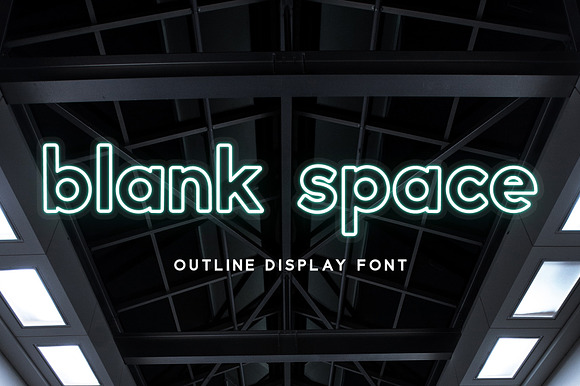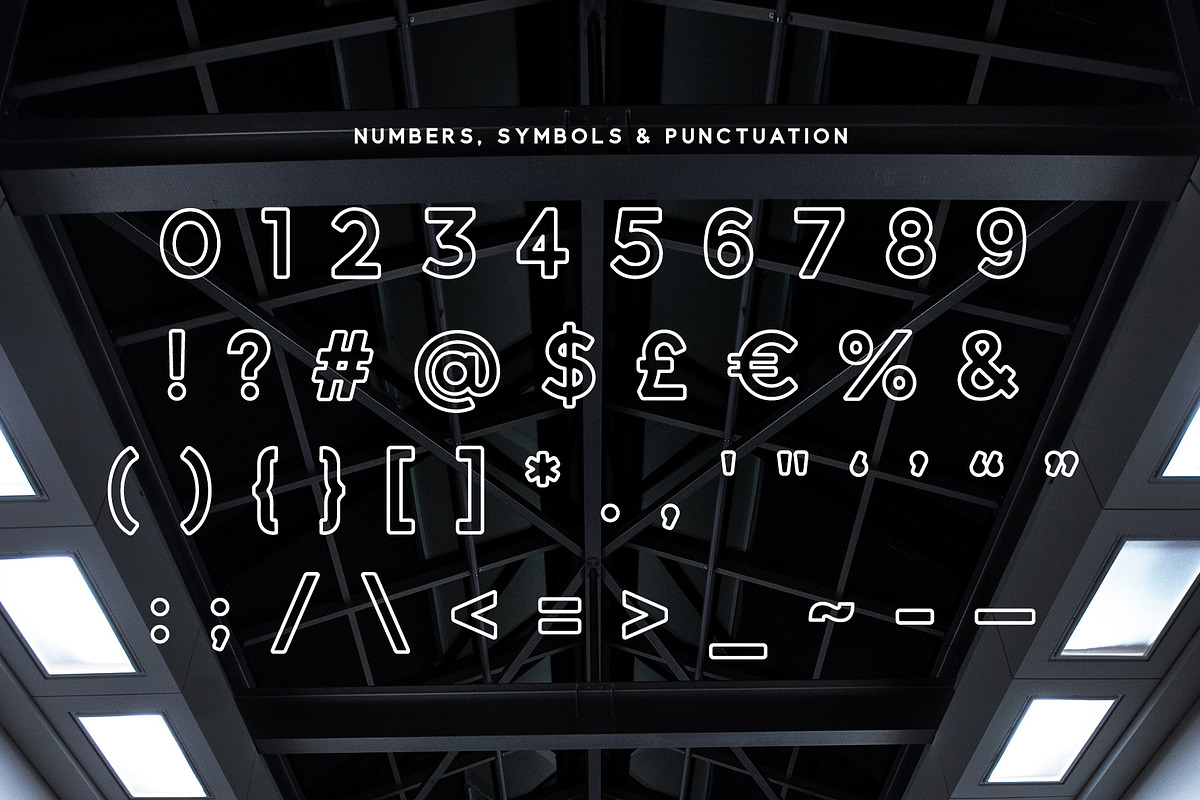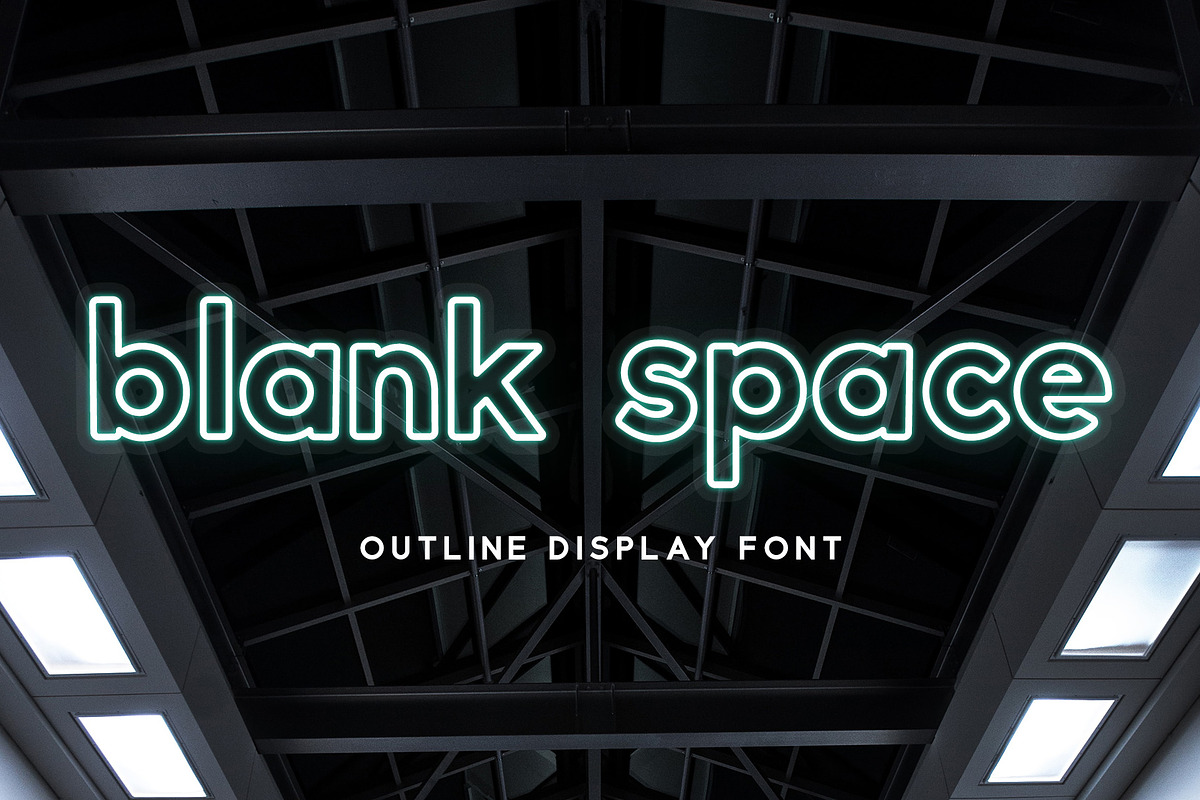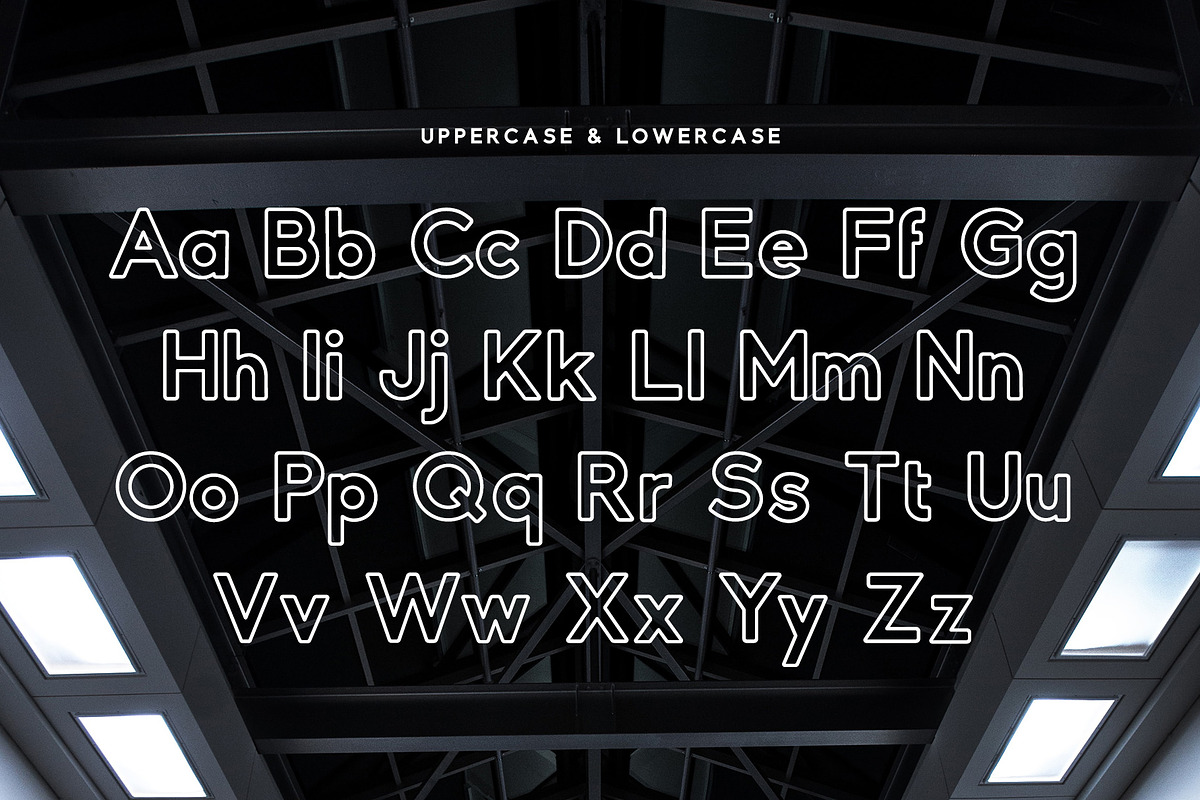
Blank Space - Outline Font
A modern sans serif display typeface with double outline effect and futuristic aura; featuring uppercase, lowercase, numbers and symbols. Inspired by and suitable for neon signs.
- A modern sans serif display typeface with double outline effect and futuristic aura; featuring uppercase, lowercase, numbers and symbols.
- Blank Space Outline